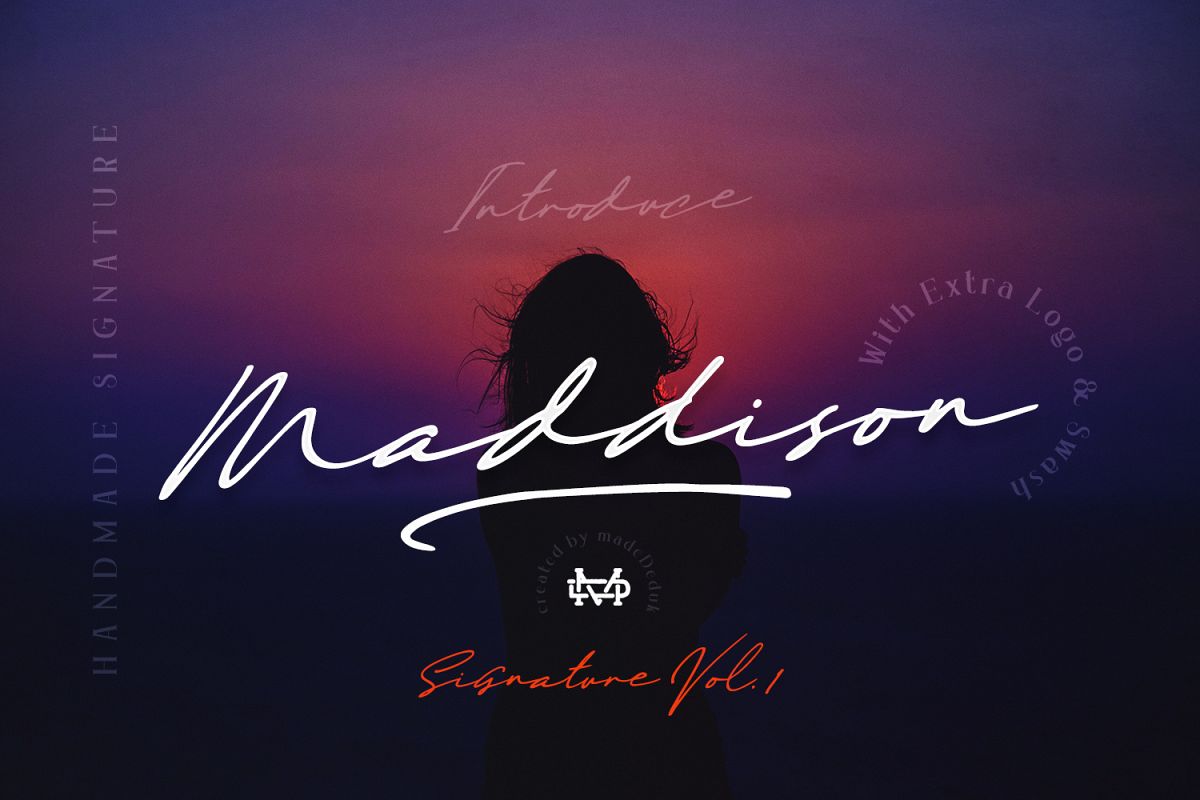
Maddison - Handmade Signature
Introducing Maddison is gorgeous handmade signature font. Maddison signature includes more than 170 ligatures to make everything look natural handmade signature.This font perfect for poster design, book covers, merchandise, fashion campaigns, newsletters, branding, advertising, magazines, greeting cards, album covers, and quote designs and more.
Feature
• UPPERCASE
• lowercase
• Number & Symbol
• International Glyphs
• Extra